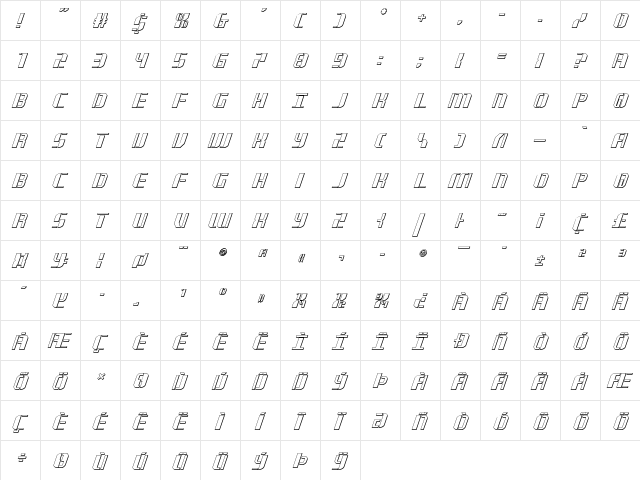
Jetway 3D Italic Italic
Design Context for Jetway 3D Italic Typeface
Jetway 3D Italic is a composed and adaptable typeface that performs quietly and consistently across a wide range of design contexts. The dynamic lean of this cut emphasises speed and emphasis in any layout.
Pro Tip: Try Jetway 3D Italic for annotation and caption copy alongside an upright companion — the contrast in angle creates a dynamic but ordered typographic system.